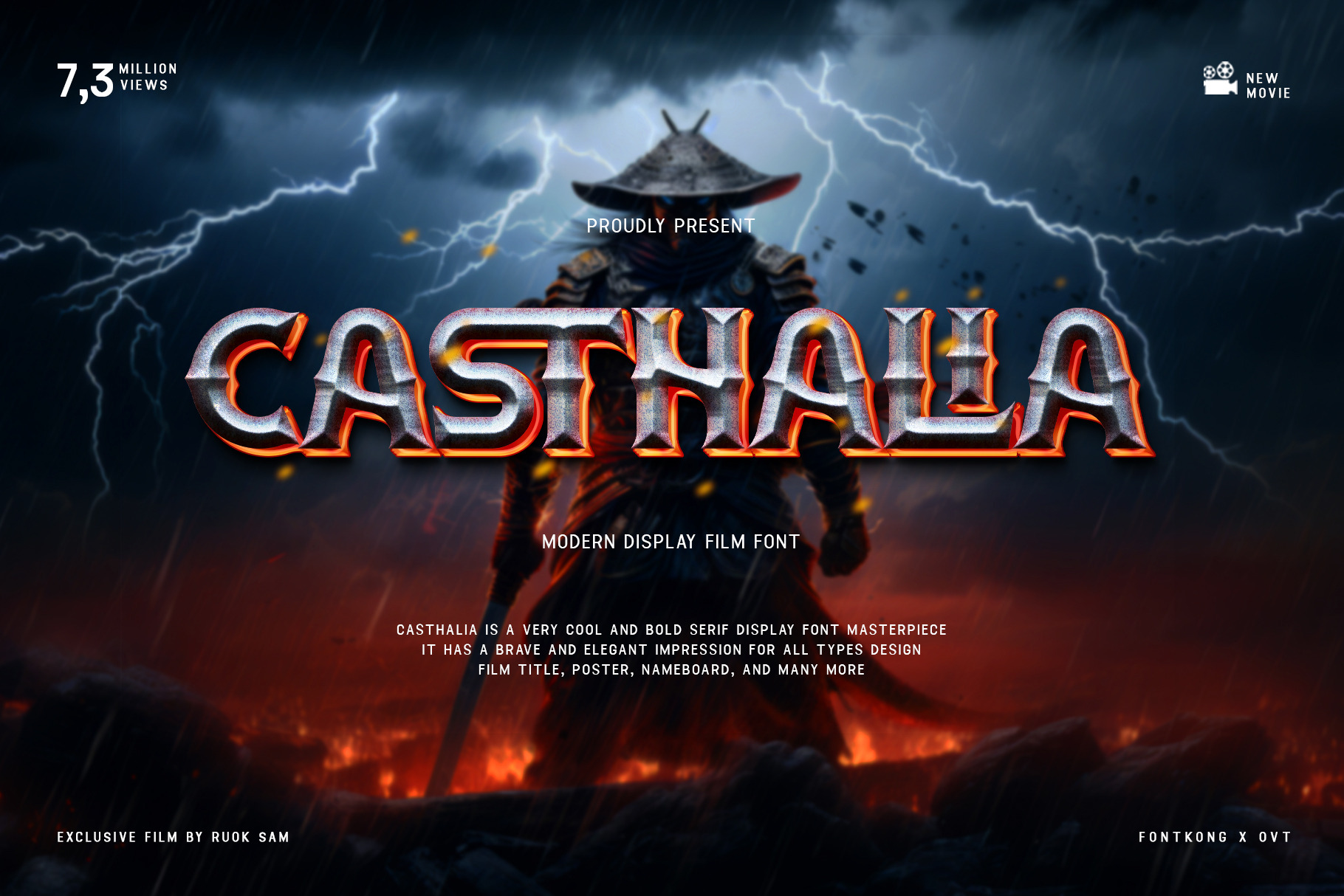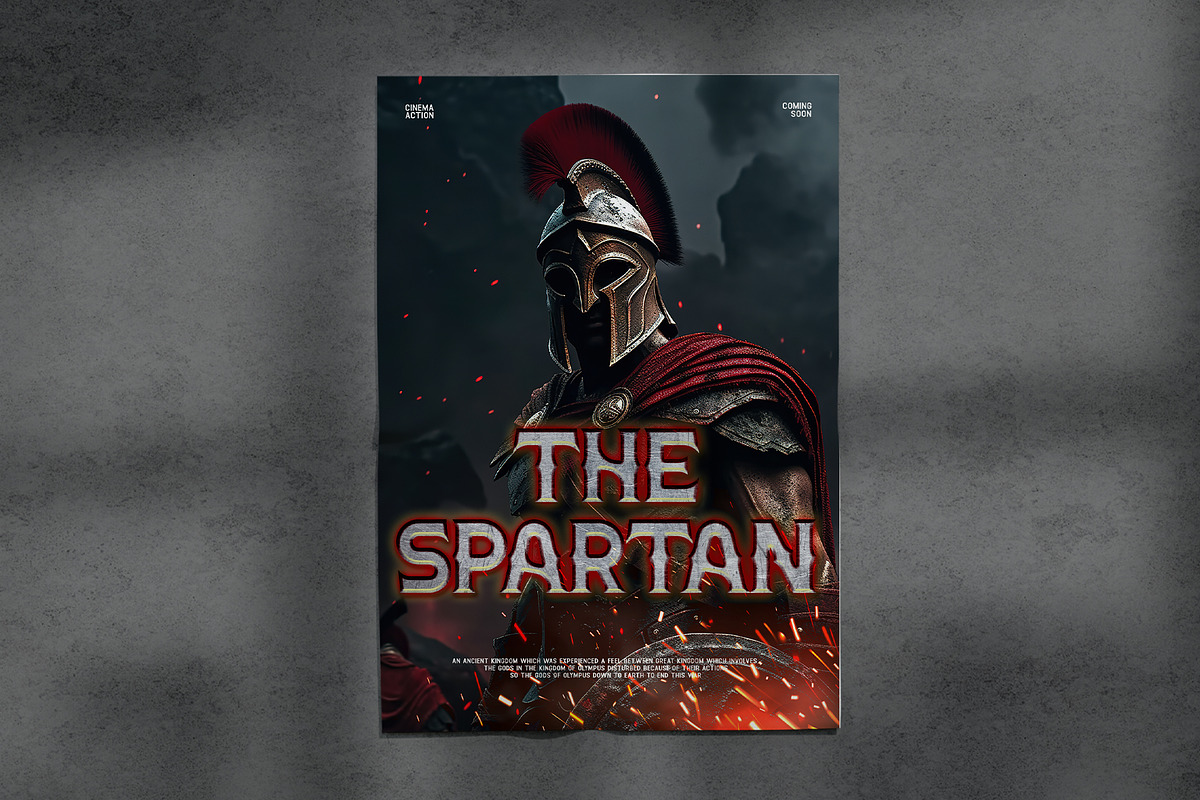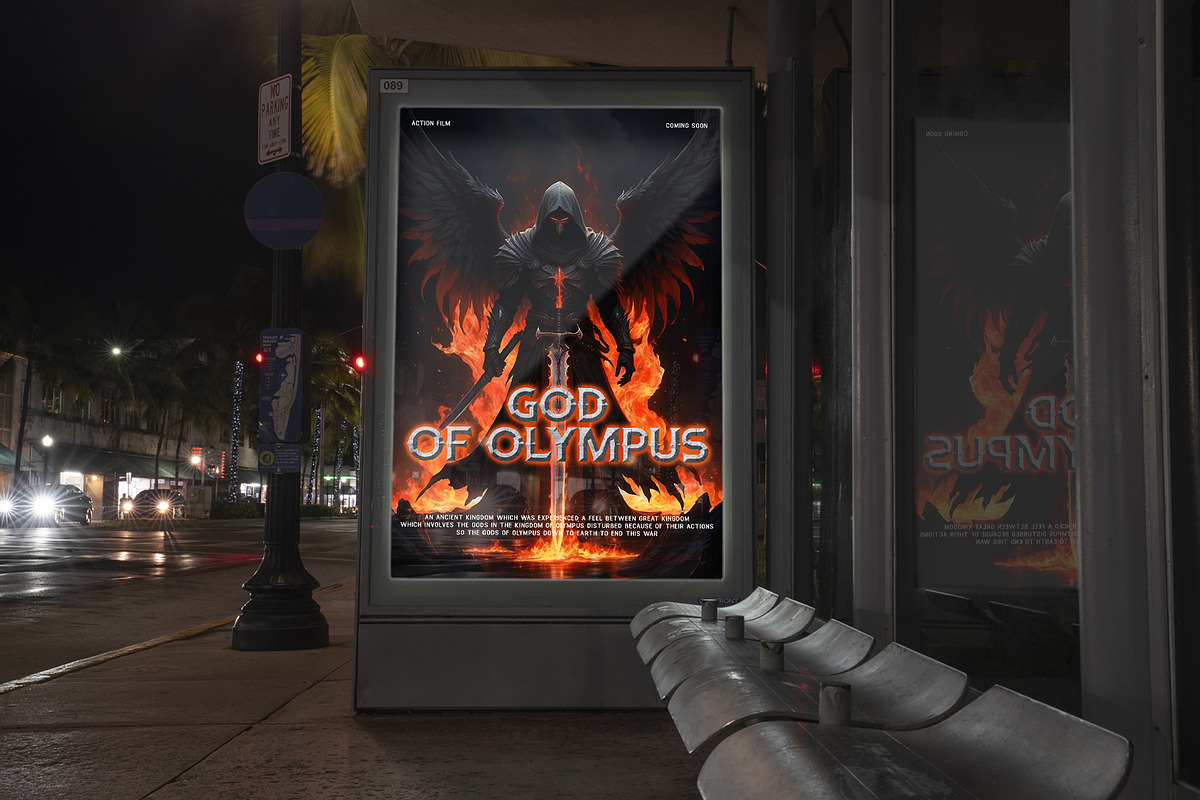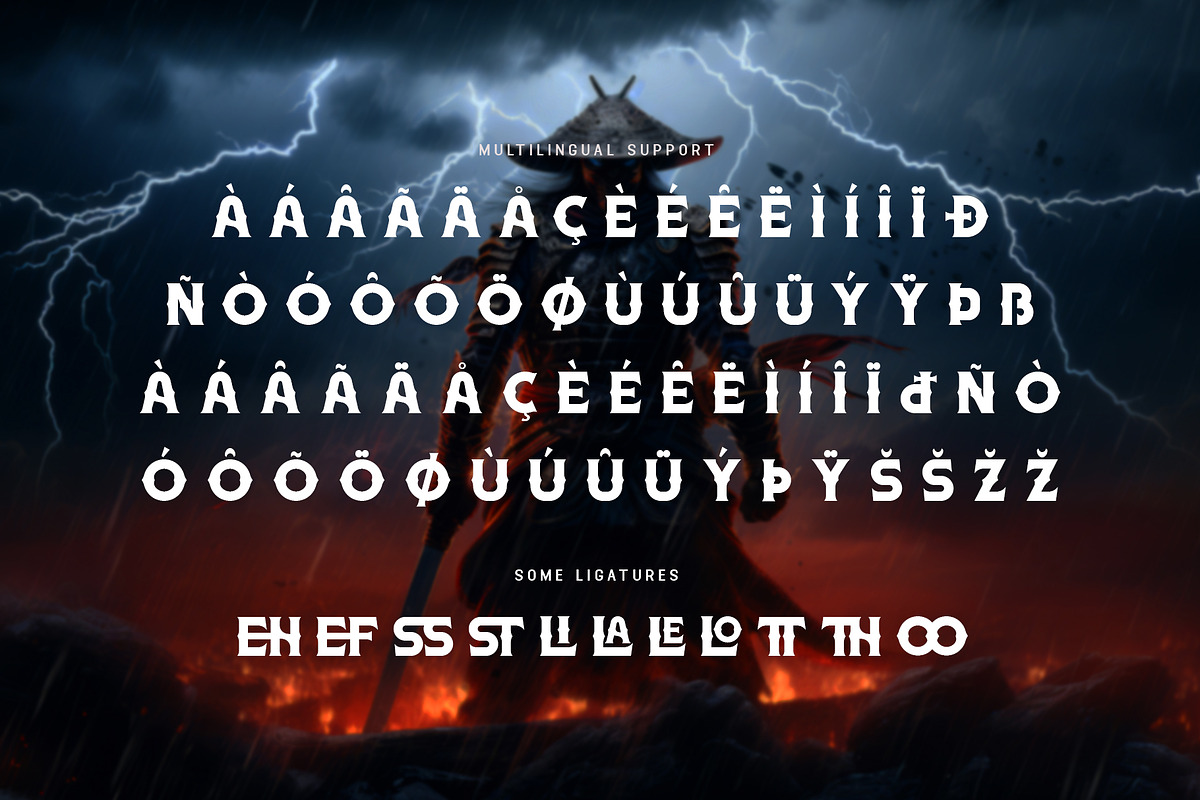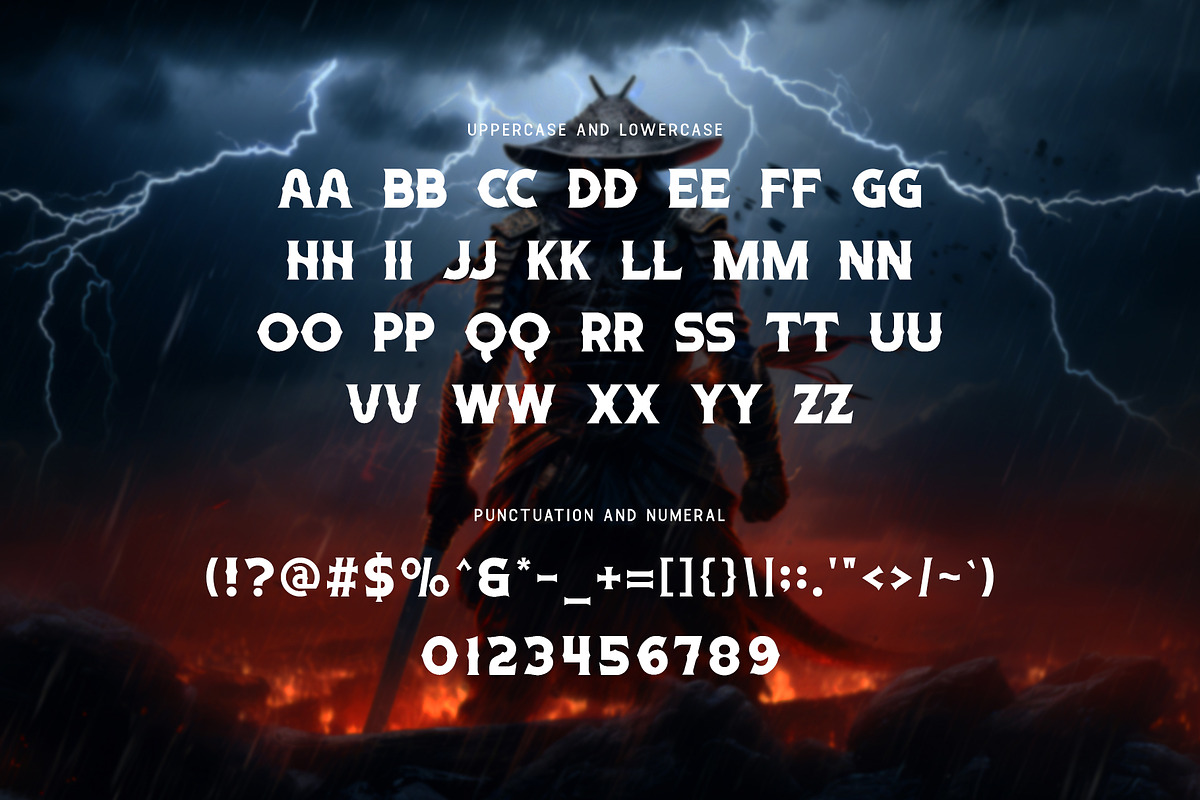
Casthalia - Modern Display Film Font
Introducing "Casthalia," a modern display film font that brings cinematic elegance and bold visual impact to your design projects. Perfect for filmmakers, graphic designers, and creatives seeking to add a sophisticated touch to their work, Casthalia combines classic film typography with contemporary styling to deliver a truly captivating font.
Ideal for film titles, movie posters, trailers, and branding materials, Casthalia’s sleek lines and refined character shapes provide a dramatic and professional look. Each character is meticulously crafted to ensure clarity and impact, making your designs memorable and visually stunning.
The "Casthalia" font includes a full set of uppercase and lowercase letters, numbers, and punctuation marks, offering versatility and flexibility for various design applications. Whether you're creating high-profile movie promotions or elegant visual content, Casthalia elevates your projects with its modern and cinematic style.
Capture the essence of cinematic elegance with Casthalia, a modern display film font that delivers bold and sophisticated visuals.